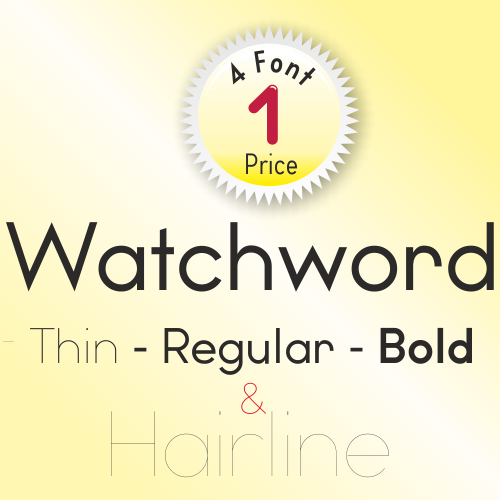
Watchword Font Family – Elegant Geometry, Lasting Impression
Designed by Mehmet Abacı, Watchword is a clean and contemporary sans-serif font family built on precision and clarity. With its open letterforms and consistent stroke modulation, it offers a modern aesthetic that is equally suited for branding, editorial design, web typography, and elegant display work.
The family includes a well-balanced range of weights:
Hairline, Thin, Regular, and Bold —
offering full flexibility for both subtle and bold typographic expressions.
Whether you're designing minimalist packaging, editorial spreads, or professional interfaces, Watchword delivers refined readability with a stylish edge.
✔️ Sleek geometric construction
✔️ Distinctive character shapes
✔️ Perfect for multilingual use – including Basic Latin, Western & Central European, Baltic, and Turkish support